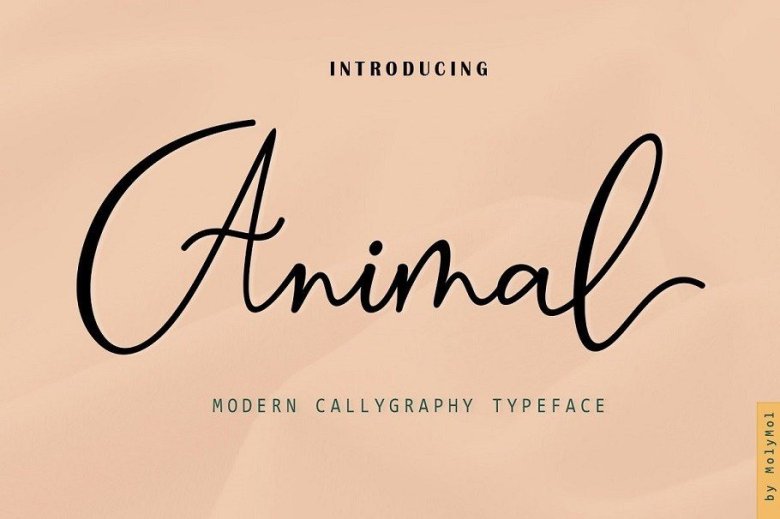
Animal Modern Calligraphy Script Font
Introducing Animal Script is modern calligraphy script font, every single letters has been carefully crafted to make your text looks beautiful. With modern script style this font will perfect for many different project, example: invitations, greeting cards, posters, name card, quotes, blog header, branding, logo, fashion, apparel, letter, stationery and more!